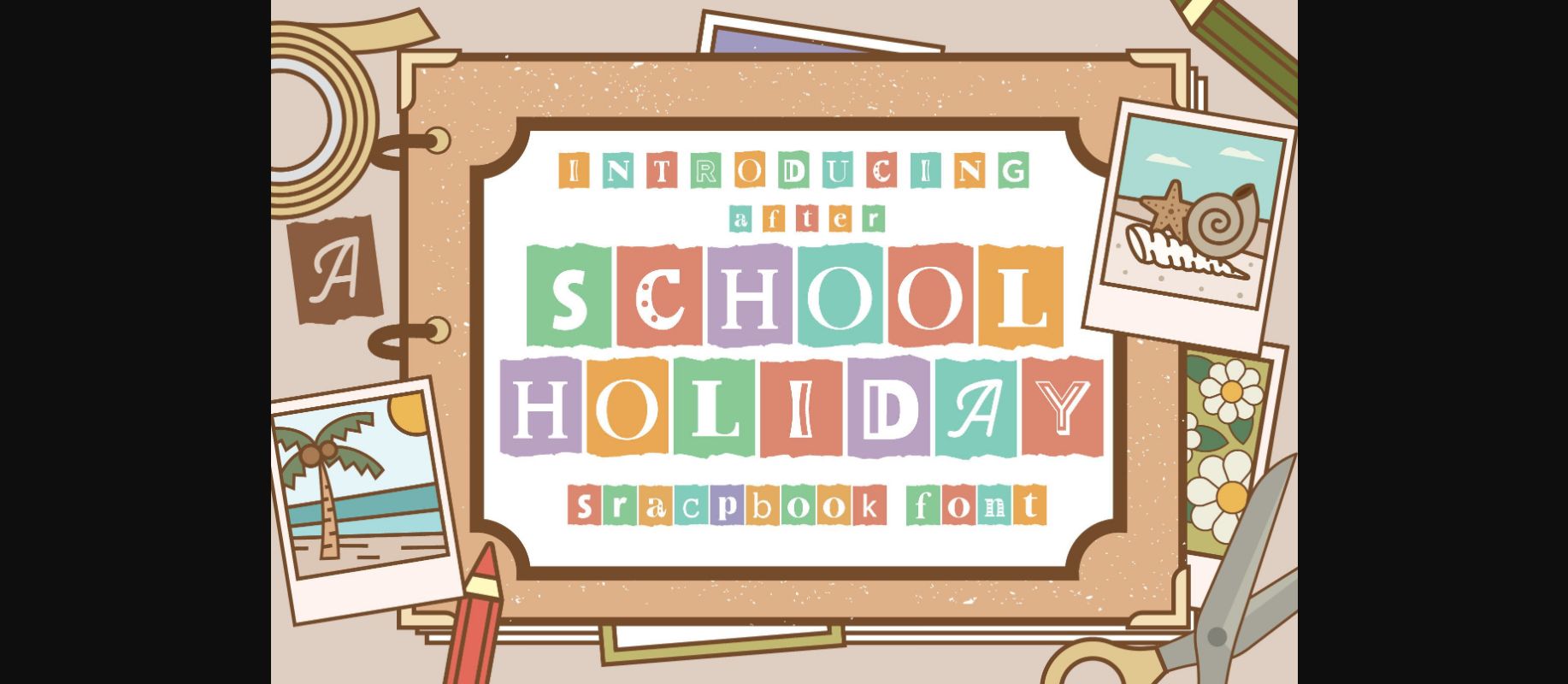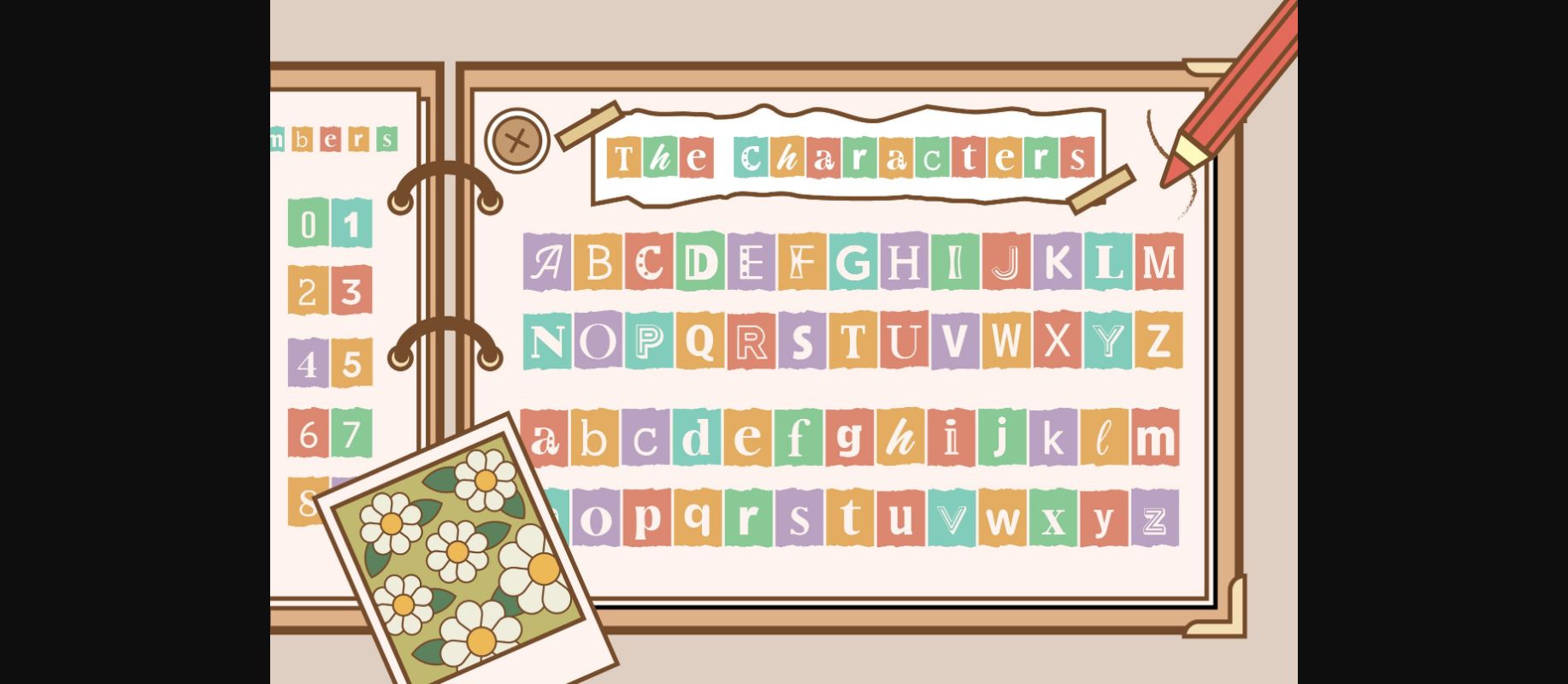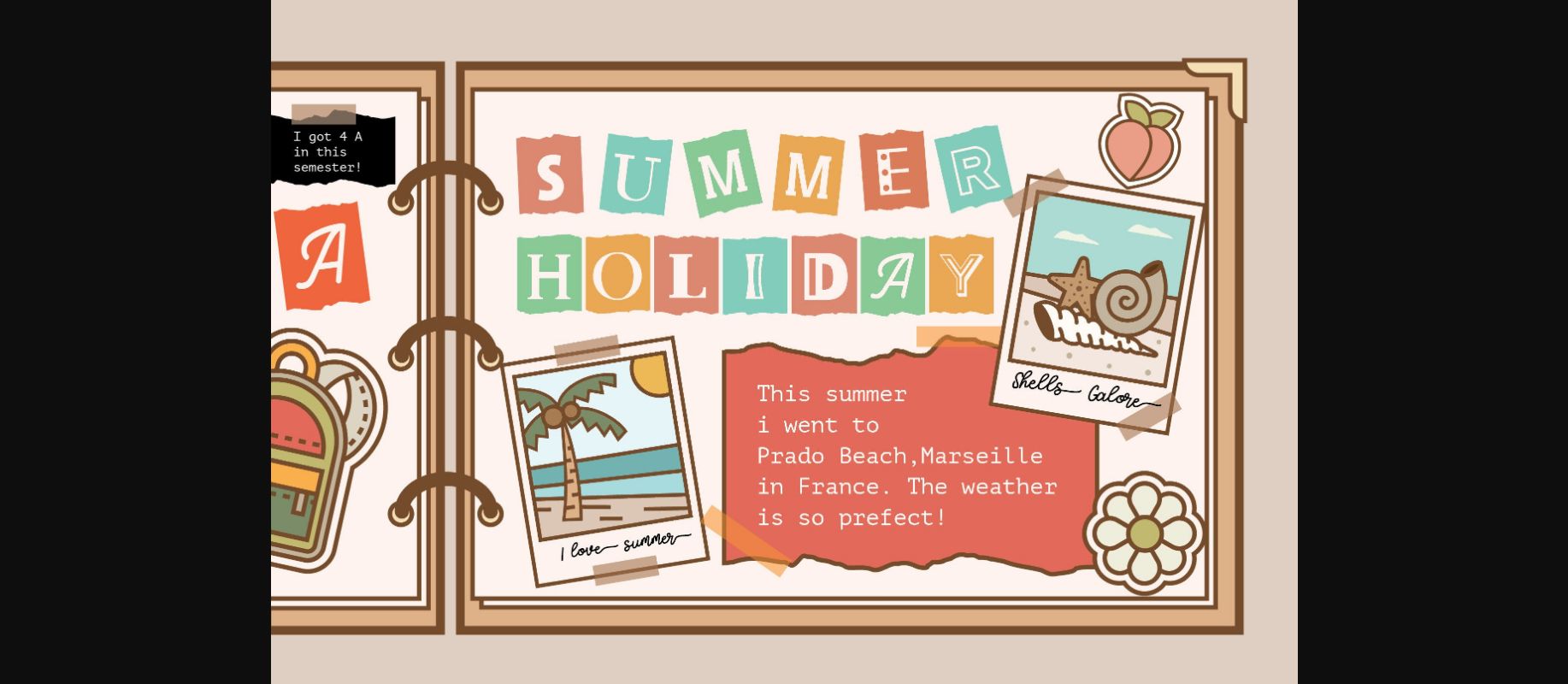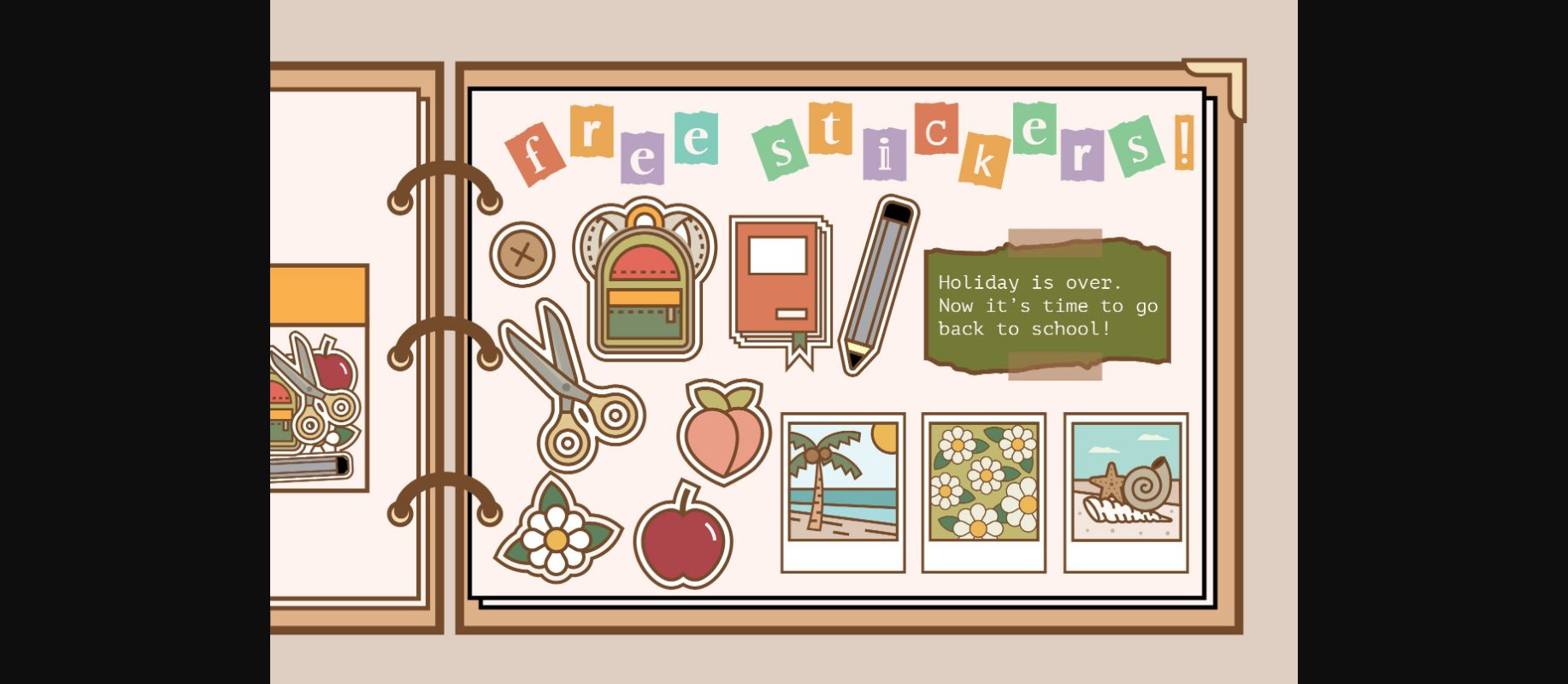
About After School Holiday Font
After School Holiday is a decorative font with a scrapbook style. You can creatively use this font to achieve a scrapbook-looking design.